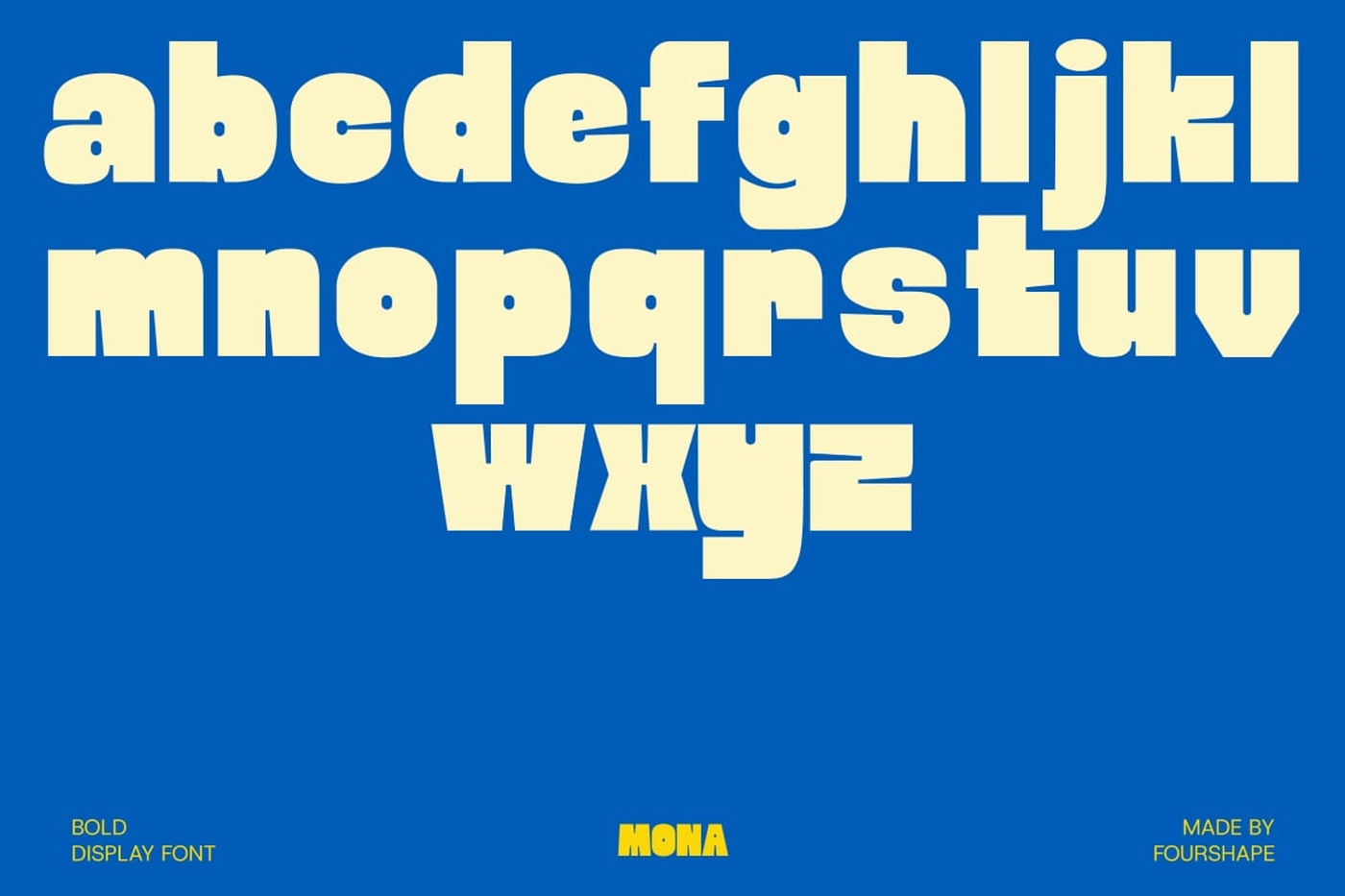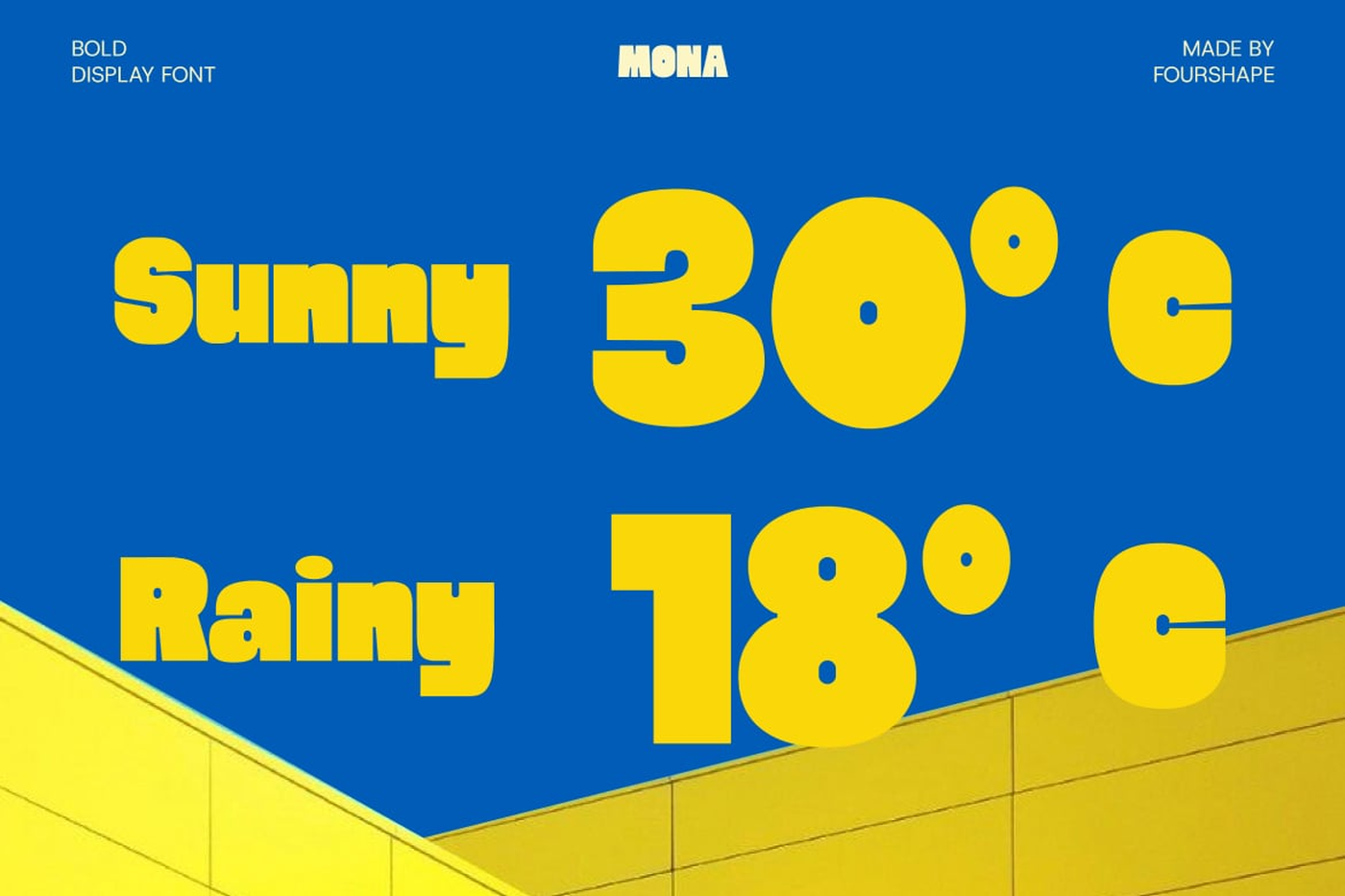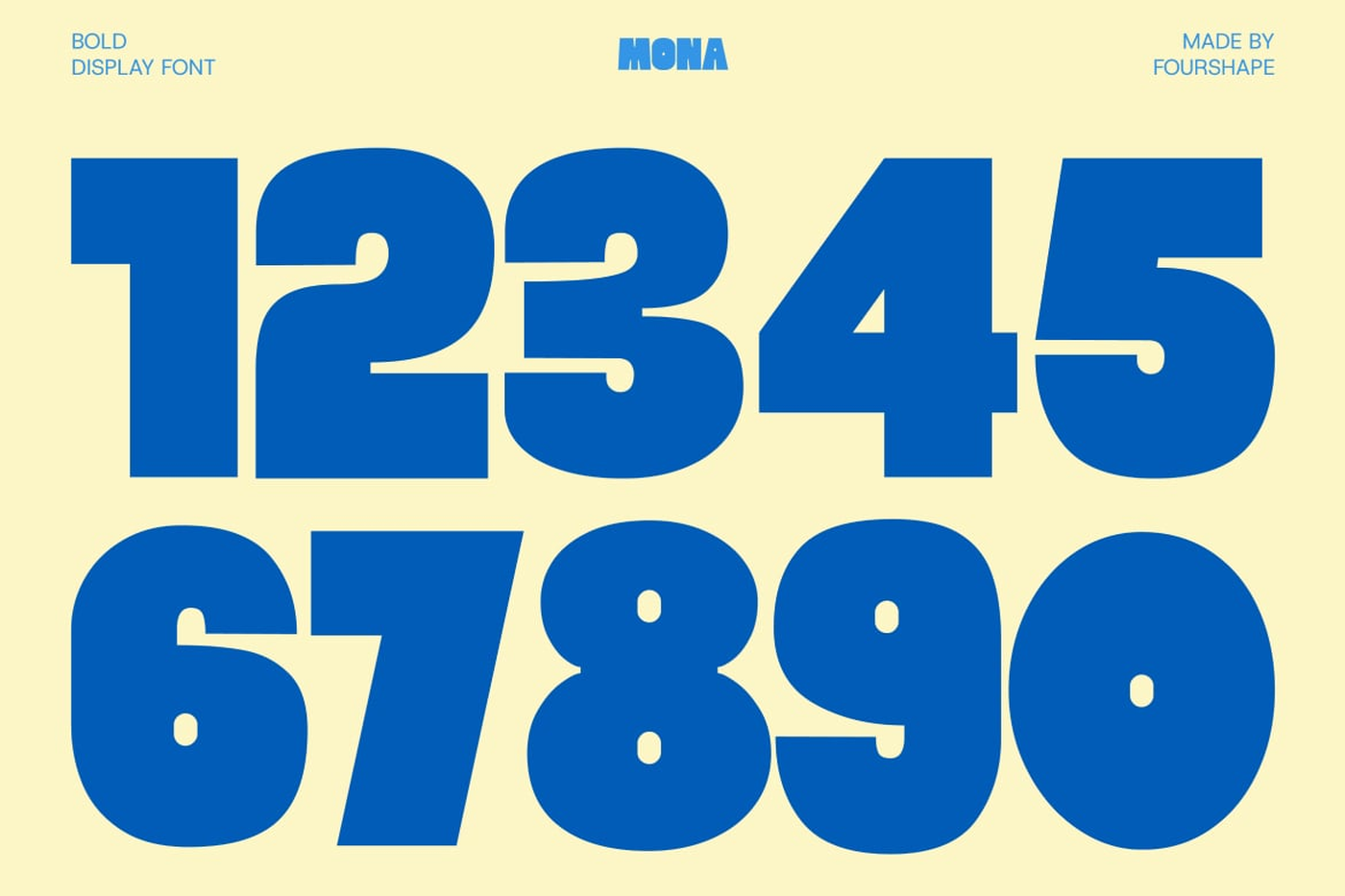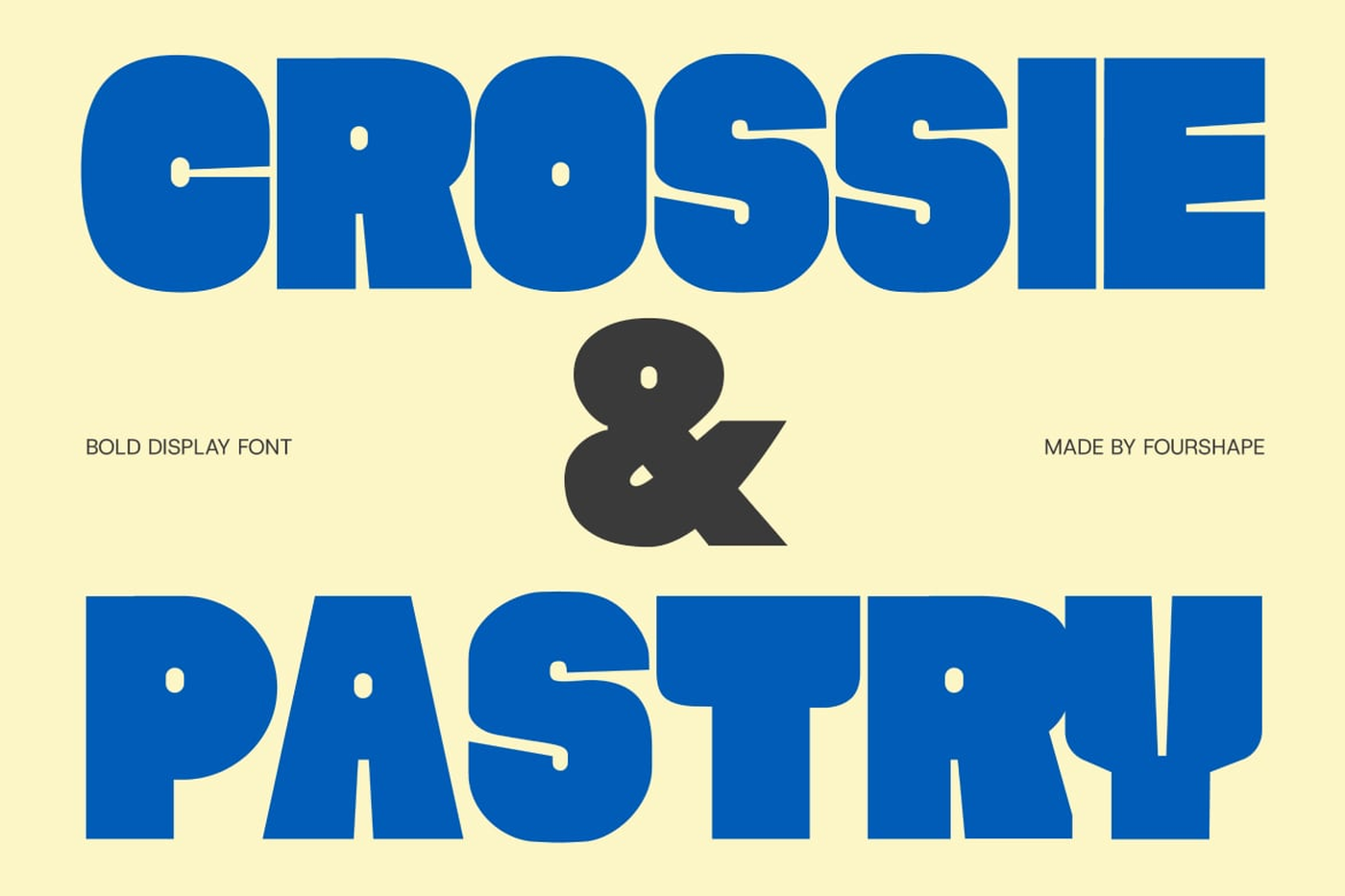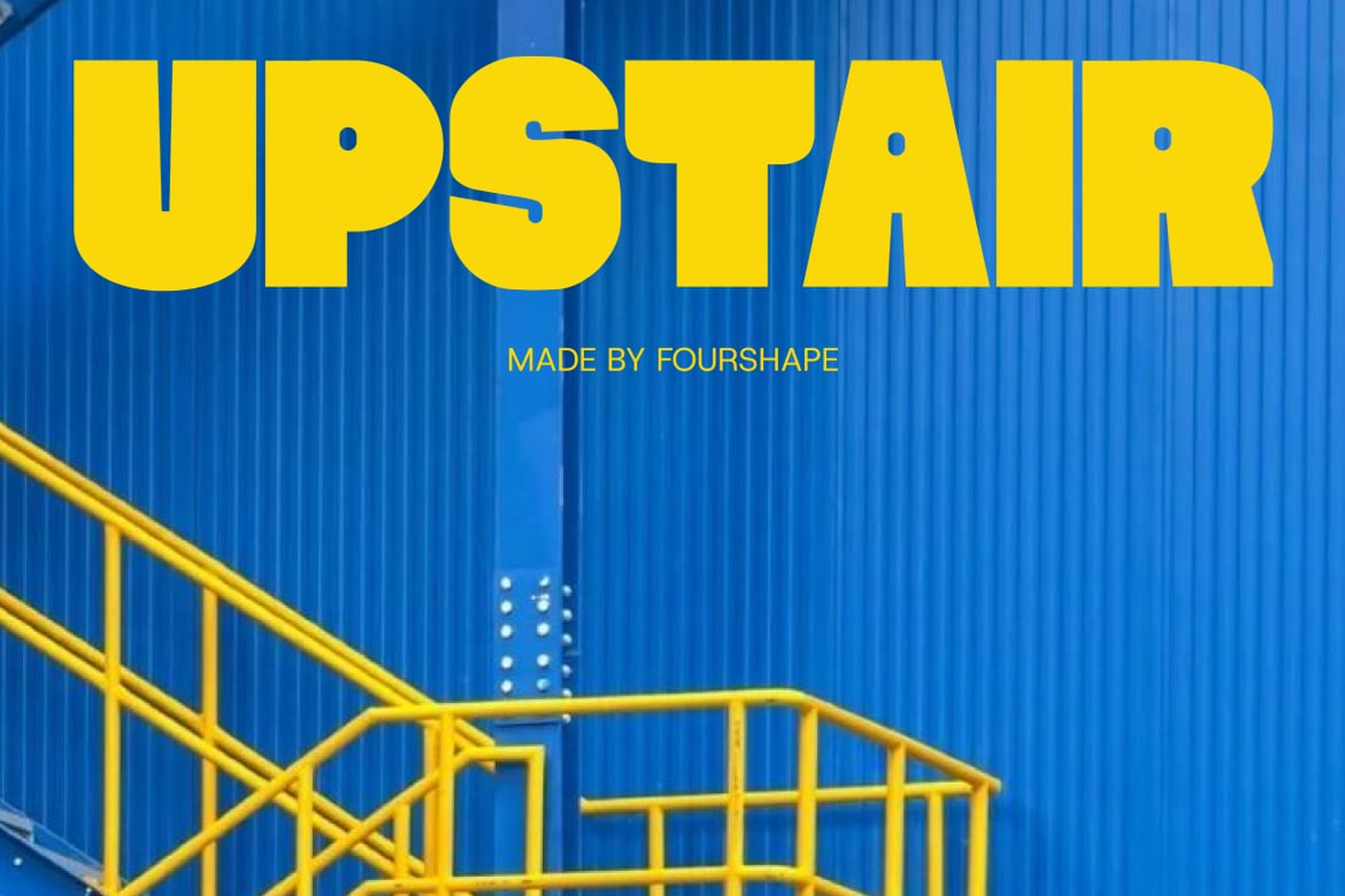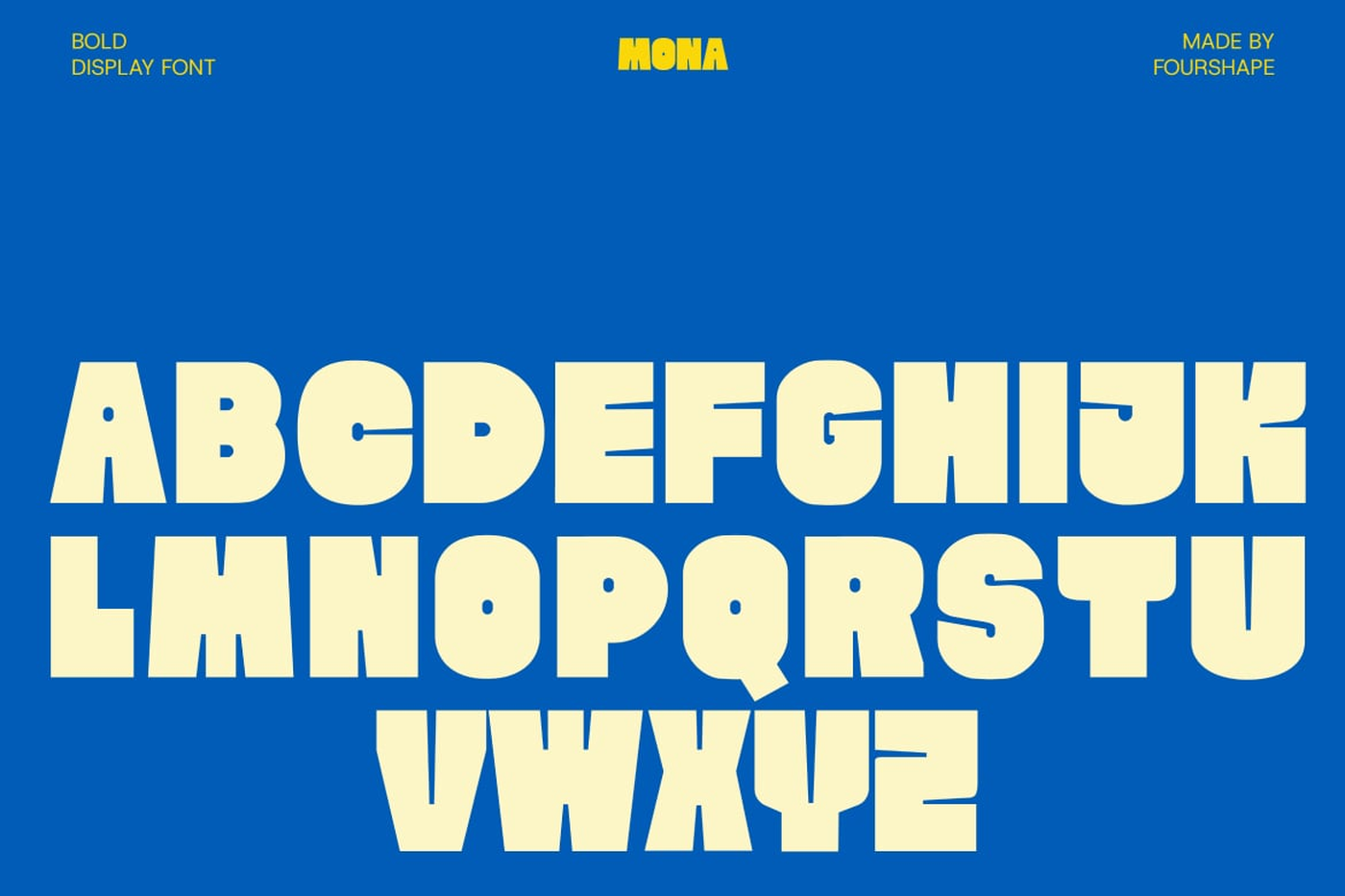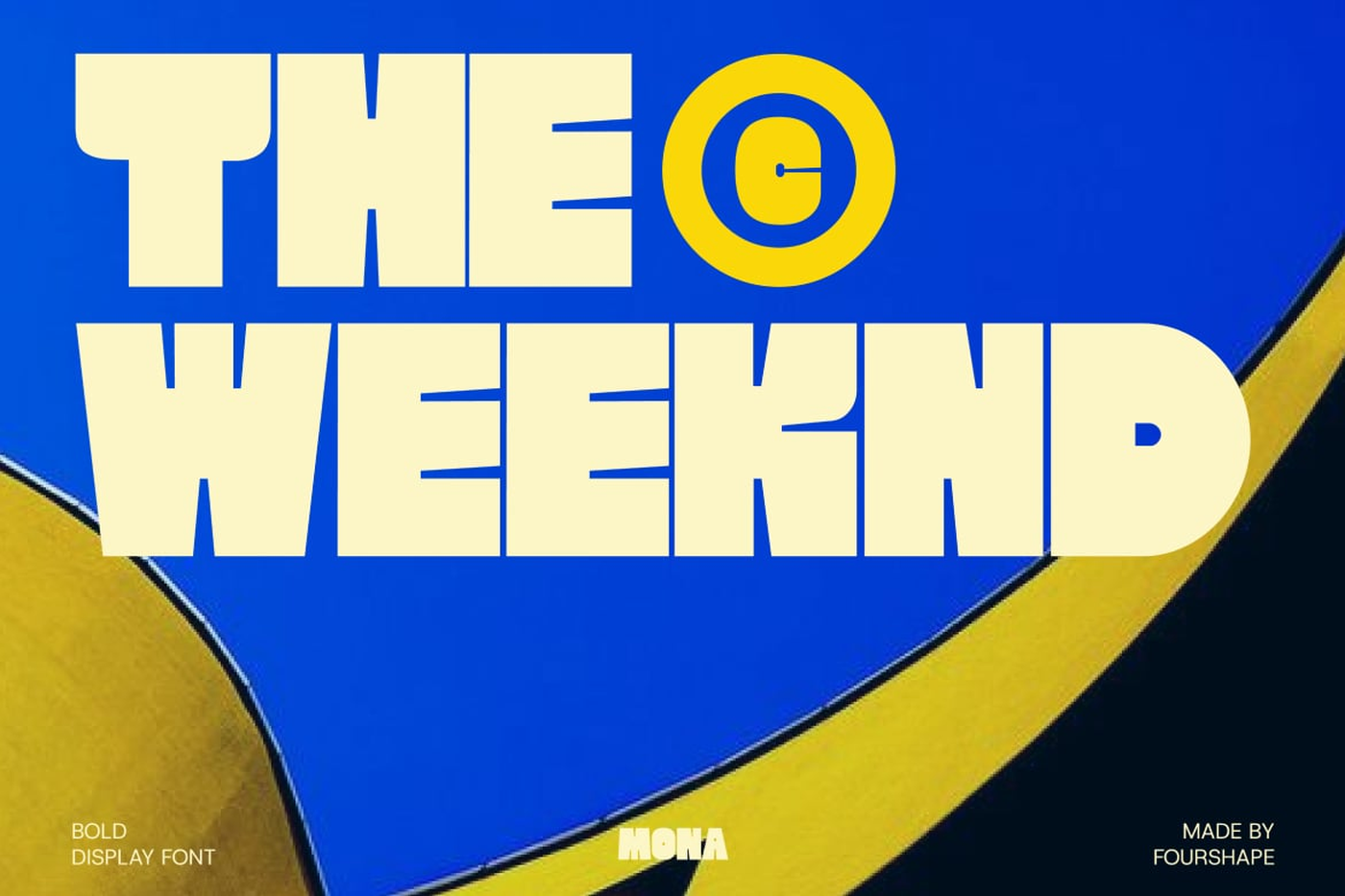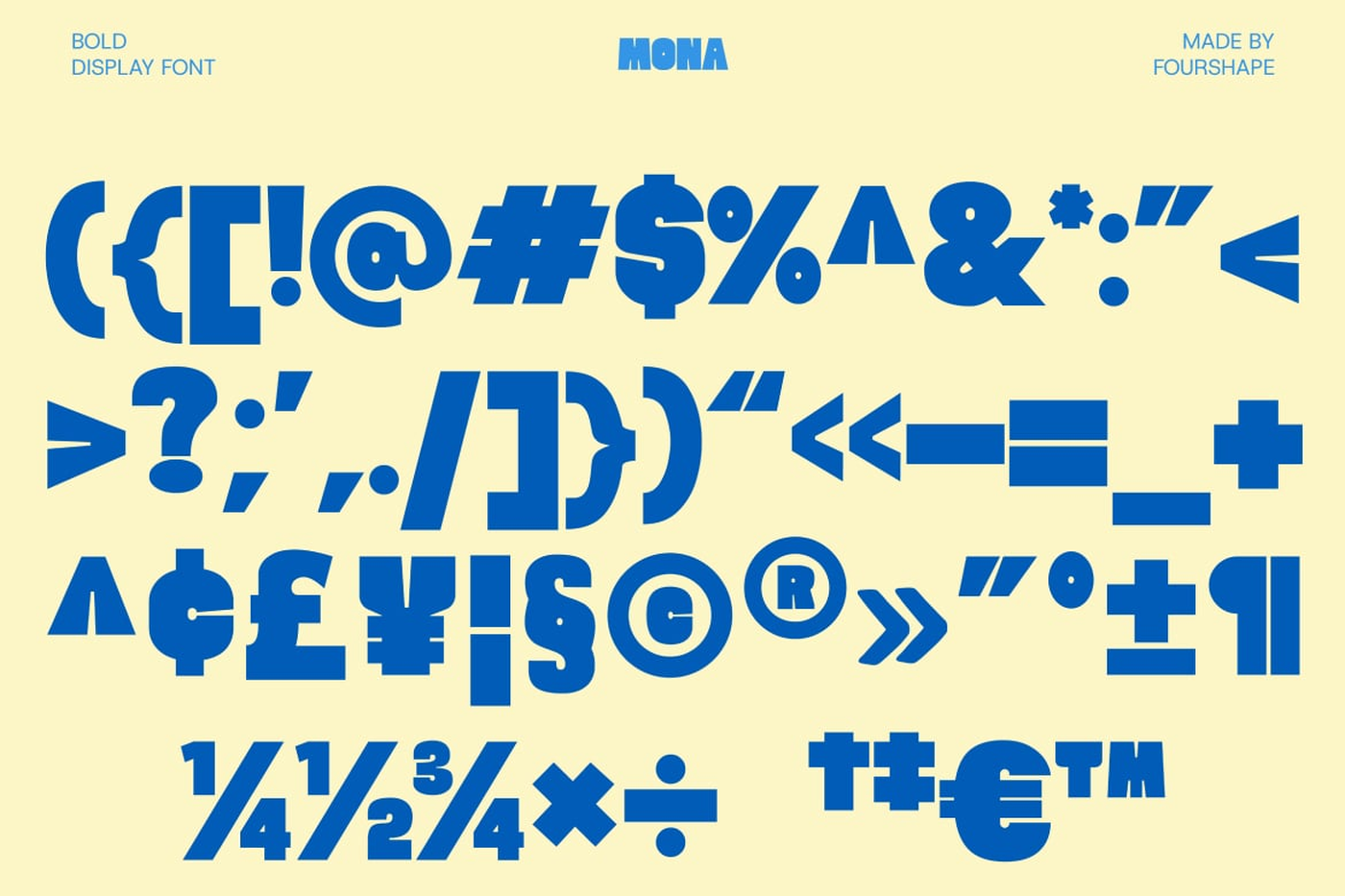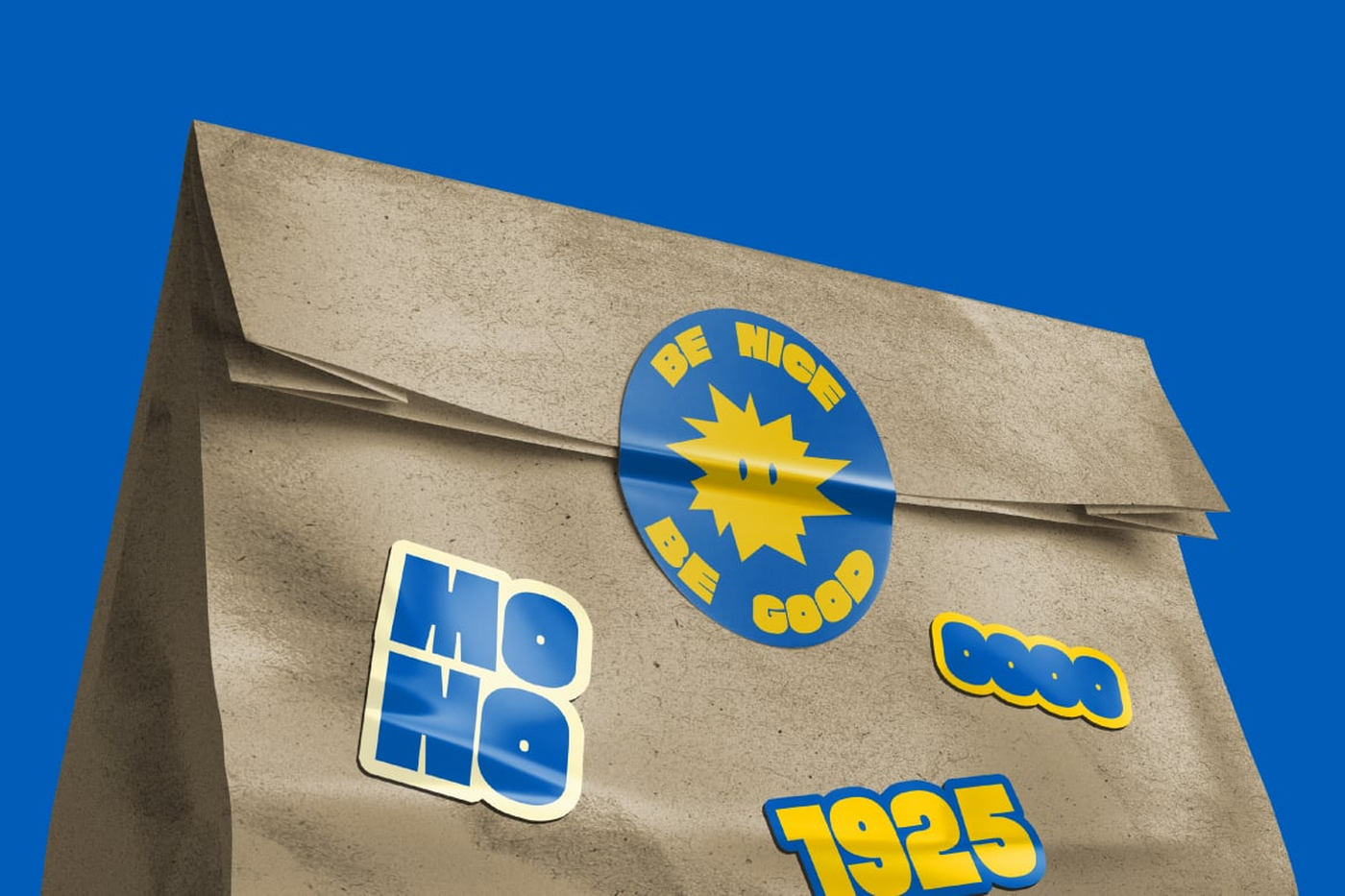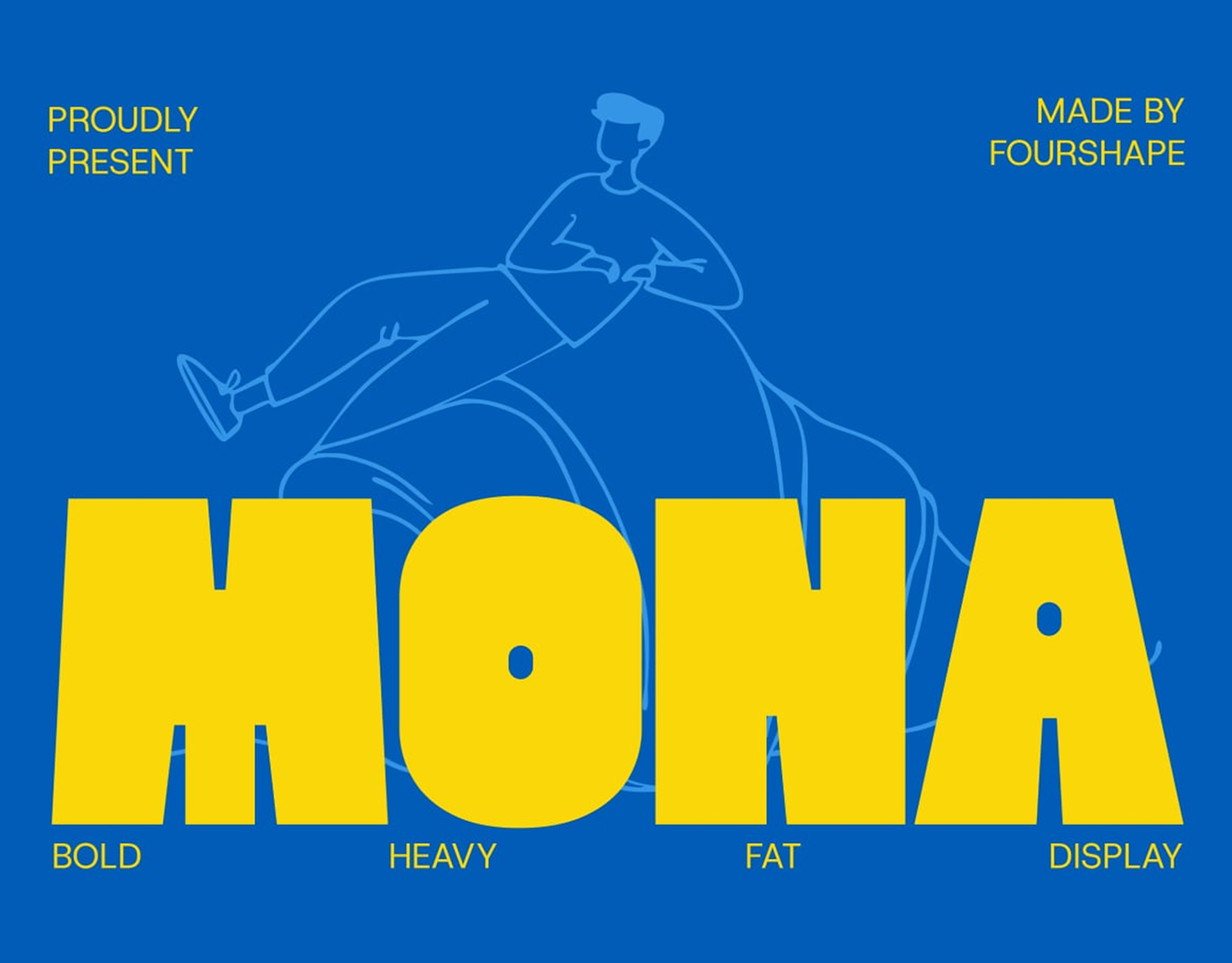
Mona - Heavy Bold Display Font
Mona is a bold and expressive display font that brings a playful and dynamic vibe to any project. Designed with bold, rounded edges and a clean, modern style, Mona is perfect for eye-catching headlines, posters, branding, and anything that needs to stand out.